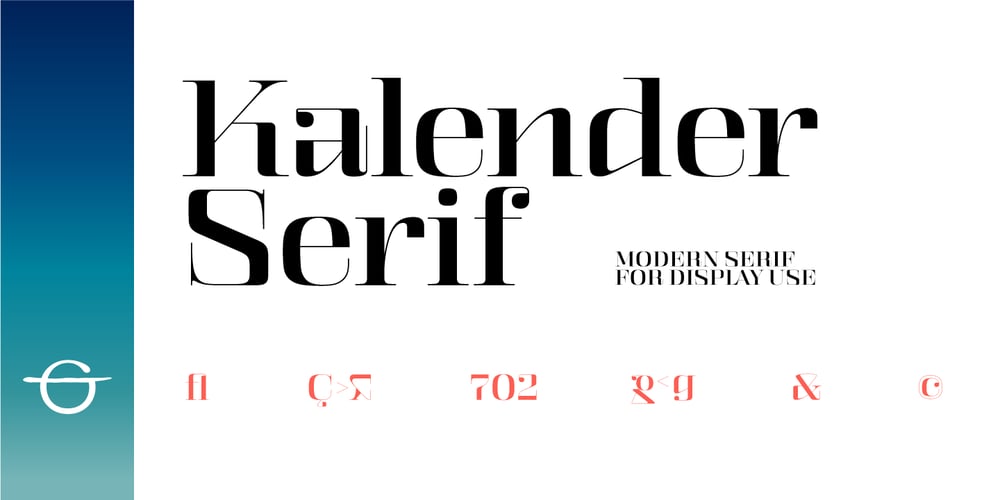
Kalender Serif Font Family was designed by Murat Çil and published by Gurup Stüdyo. Kalender Serif contains 4 styles and family package options. ∙Kalender is designed as a high-contrast modern serif for display use. Kalender is provides you an elegant and luxurious typographic colour.∙When Kalender’s lines invisible at small sizes you can use Kalender No 2 which have thicker lines and serifs to assist readability.∙Kalender Blok is arranged for situations which are diacritical marks overflow to leadings of the headline and headline typographical color is affected negatively from this situation. For this purpose, majiscule diacritical letters are resolved within the letter height. However, when this is done, new forms are obtained by integrated diacritical marks with letters instead of directly merging them. The idea behind this approach is to preserve the typographic value of diacritical marks and emphasize the semantic value of diacritical letters. 68 letters have been redesigned in this way.And also Kalender have different meanings in Turkish: large, humble etc. I considered this name appropriate because it described the structure of this font well.